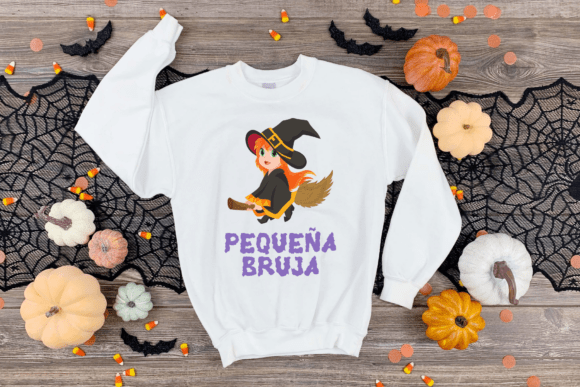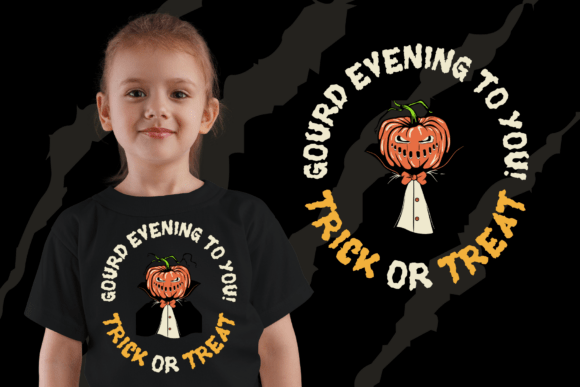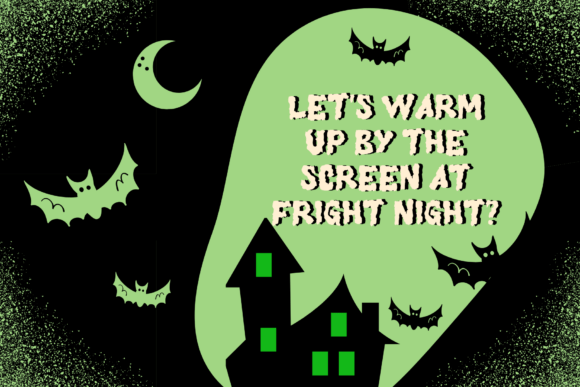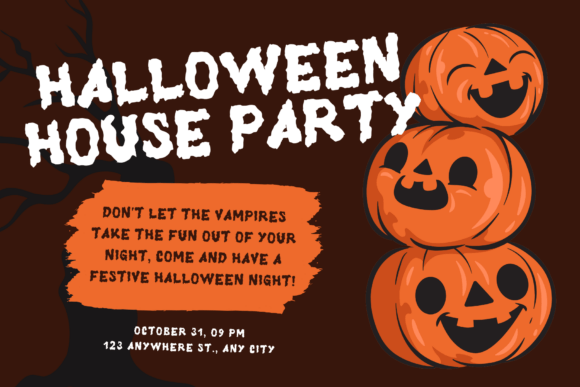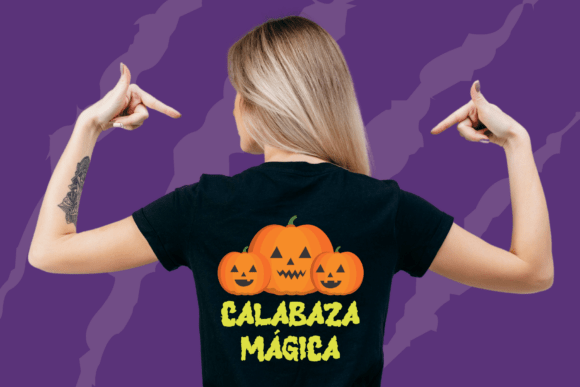
Unleash the Spoirit of Halloween with Dark Mansion Font
As the spookiest time of the year approaches, designers and crafters are on the lookout for the perfect typography to add a touch of eeriness and playfulness to their projects. Look no further than the Dark Mansion Font, a Halloween display font that embodies the spirit of the season. In this article, we’ll dive into the world of Dark Mansion, exploring its features, uses, and benefits, and why it’s the perfect choice for all your favorite projects.
What is Dark Mansion Font?
Dark Mansion is a unique and captivating display font, specifically designed to add a touch of Halloween magic to your designs. Its distinctive style combines playfulness and authenticity, making it an ideal choice for a wide range of projects, from blog posts and logos to branding, ads, invitations, greeting cards, planners, photo albums, decorations, and more.
Key Features of Dark Mansion Font
- Halloween-themed design: Dark Mansion boasts a spooky yet playful design, perfect for adding a touch of Halloween spirit to your projects.
- Display font: This font is specifically designed for display purposes, making it perfect for headlines, titles, and other attention-grabbing elements.
- Playful and authentic: Dark Mansion’s unique style combines playfulness and authenticity, making it an excellent choice for a wide range of projects.
- Versatile: Use Dark Mansion for various projects, including blog posts, logos, branding, ads, invitations, greeting cards, planners, photo albums, decorations, and more.
Why Choose Dark Mansion Font?
- Add a touch of Halloween spirit: Dark Mansion is the perfect way to add a touch of Halloween magic to your designs, making them stand out from the crowd.
- High-quality design: Dark Mansion boasts a high-quality design, ensuring that your projects look professional and visually appealing.
- Unique and captivating: This font’s distinctive style is sure to capture the attention of your audience, making your projects more engaging and memorable.
Project Ideas Using Dark Mansion Font
- Halloween-themed blog posts: Add a touch of Halloween spirit to your blog posts with Dark Mansion Font.
- Logos and branding: Use Dark Mansion Font to create a unique and captivating logo for your business or brand.
- Invitations and greeting cards: Add a touch of elegance and sophistication to your invitations and greeting cards with Dark Mansion Font.
- Decorations and DIY projects: Use Dark Mansion Font to add a personal touch to your decorations and DIY projects.